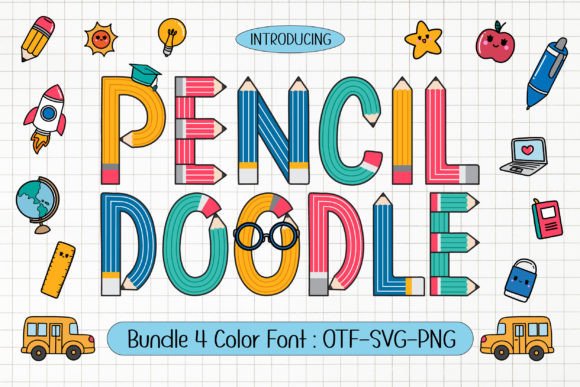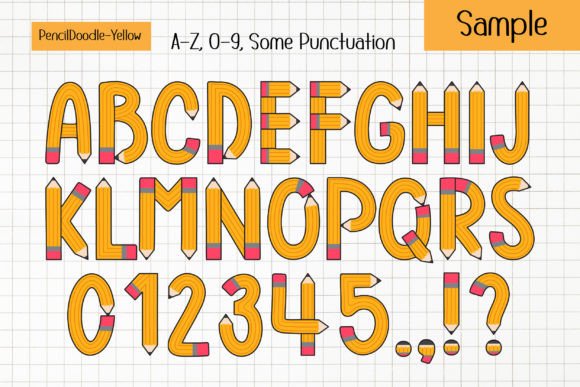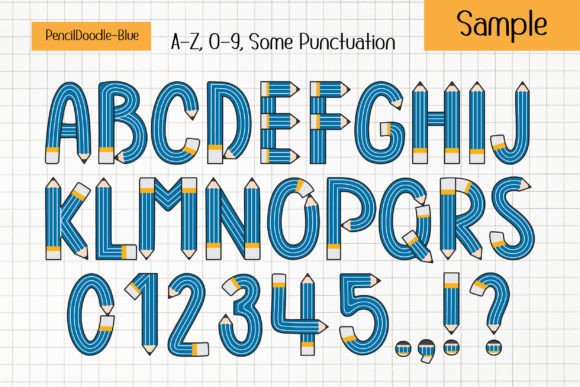
Pencil Doodle Font
About the Pencil Doodle Font
We are excited to introduce Pencil Doodle Font, a must-have typeface for any serious designer. “Pencil Doodle” is a delightful back-to-school font theme inspired by the shape of a pencil. This colorful and funny font is perfect for kids, featuring four vibrant color styles and 20 matching doodle clip art. Ideal for custom DIY craft projects, personalized names, sublimations, posters, and a variety of other creative works, “Pencil Doodle” adds a playful and educational touch to your designs, making it the perfect choice for back-to-school themes and more!
Its playful, hand-drawn aesthetic makes “Pencil Doodle” particularly effective for children’s books, greeting cards, and playful branding projects targeting a younger demographic. It shines in headlines, short text blocks, and decorative elements, adding a whimsical touch. However, its informal nature makes it unsuitable for large bodies of text or applications requiring high readability, such as website copy or UI elements.
Pairing “Pencil Doodle” with a clean sans-serif like Open Sans for body text creates a balanced contrast, allowing the playful display font to stand out. For a more sophisticated feel, consider pairing it with a classic serif like Garamond, letting the elegant serif complement the font’s hand-drawn charm. Avoid pairing it with other highly decorative or script fonts, which might create visual clutter.
The overall personality of “Pencil Doodle” is undeniably youthful and energetic. It conveys a sense of fun, creativity, and approachability, making it ideal for brands that wish to project a lighthearted and approachable image.